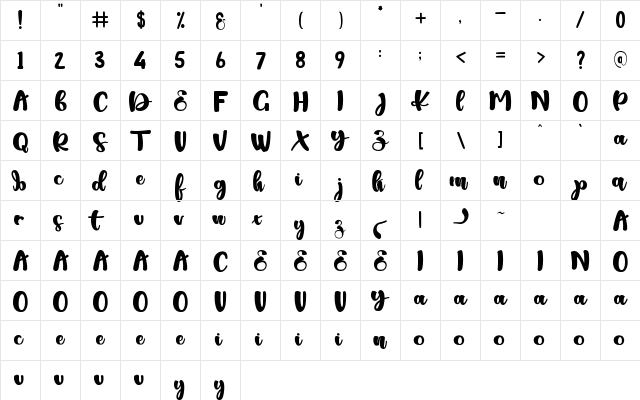
Potato Regular
| Foundry | Markonah Creative |
| Designer | Herman |
Design Context for Potato Typeface
Potato is a composed and adaptable typeface that performs quietly and consistently across a wide range of design contexts.